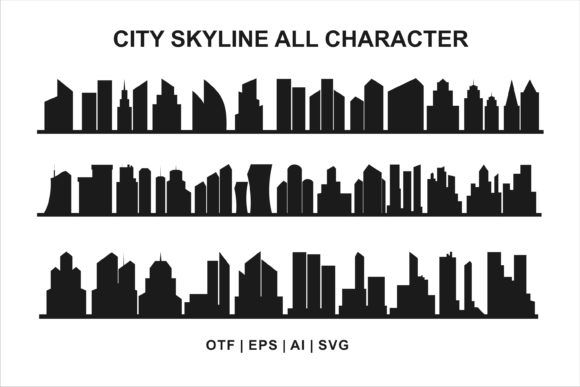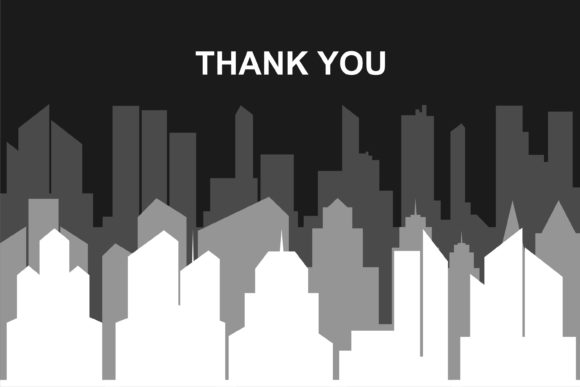
City Skyline Font
About City Skyline Font
“City Skyline” is a cool, useful, and unique dingbats font that will add a touch of urban sophistication to your designs. This font is perfect for capturing the essence of a cityscape and creating eye-catching visuals.
When you incorporate “City Skyline” into your designs, you’ll notice how it brings them to life with its distinct set of city skyline symbols. These symbols represent iconic buildings and landmarks, creating a sense of urban energy and vibrancy. Whether you’re designing posters, brochures, logos, or any other visual material, this font will add a dynamic and contemporary element to your work.
The versatility of “City Skyline” allows you to use it in various design projects. You can create city-themed graphics for travel websites, event promotions, urban fashion brands, or even architecture-related content. The font’s unique symbols can be arranged to form a captivating skyline composition, adding visual interest and a modern touch to your designs.
Experiment with different layouts, sizes, and color schemes to make the most of this font. Consider combining “City Skyline” with complementary fonts to create a cohesive design system. You can pair it with bold and clean typefaces for a minimalist look or with decorative scripts to add a touch of elegance and playfulness.
Additionally, don’t hesitate to explore different design techniques to enhance the impact of “City Skyline” in your compositions. Layering the symbols, adding textures, or incorporating other design elements such as gradients or illustrations can help create depth and visual appeal.
Whether you’re working on branding projects, social media graphics, or even architectural presentations, “City Skyline” will elevate your designs and give them a contemporary urban edge. Its unique set of symbols will bring a sense of place and identity to your visuals, making them stand out and leaving a lasting impression on your audience.
In summary, “City Skyline” is a cool, useful, and unique dingbats font that will bring your designs to life with its iconic city skyline symbols. Embrace the urban energy and sophistication it offers, and let it be your go-to font for all your city-themed projects.